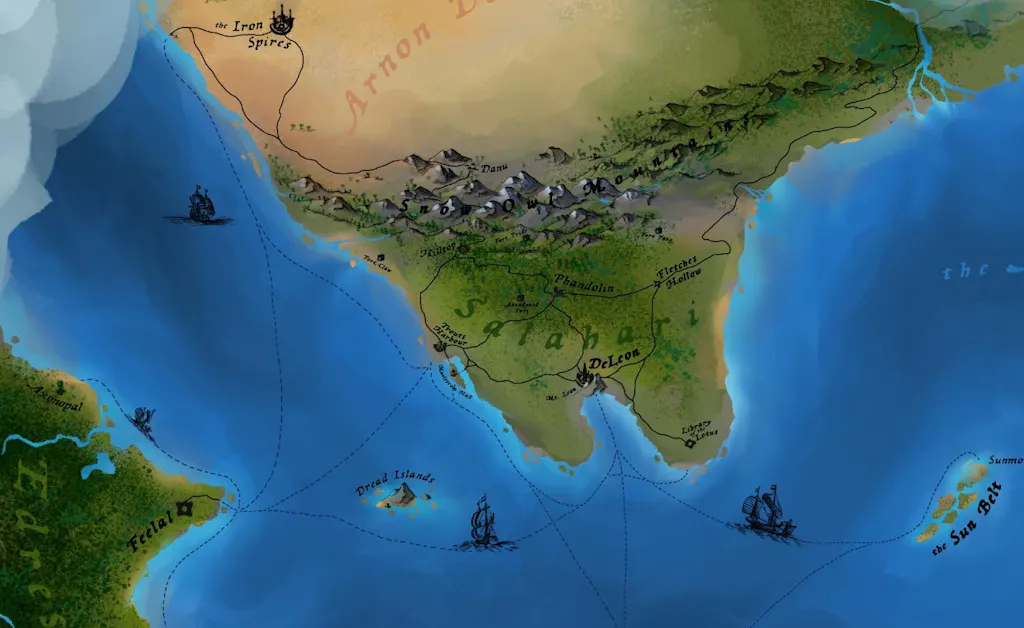
Wayfinder GM
Wayfinder GM is a warm, organic fantasy map font meticulously crafted for storytellers, cartographers, and Dungeon Masters who chart the unknown. Inspired by vintage exploration logs and the patient art of classical map-making, this flowing handwritten script brings instant authenticity to your custom fantasy worlds.
Whether you are marking a jagged coast, naming a forgotten empire, or detailing the treacherous paths your party dares to follow, Wayfinder GM serves as a quiet guide through the wilds of your imagination.
- 2 Fantasy Map Font Weights: Includes both Regular and Bold styles for hierarchical map labeling and title headers.
- Natural Ligatures & Alternates: Built-in lowercase variations to ensure your custom text looks organically hand-drawn.
For Worlduilders and map makers
This hand-drawn typeface is engineered for labelling D&D campaign setting maps and drafting immersive worldbuilding documents. Use the Bold weight to define sprawling continent names, mountain ranges, and regional capitals, while switching to the Regular weight for marking obscure dungeon locations, winding rivers, and custom player handouts.